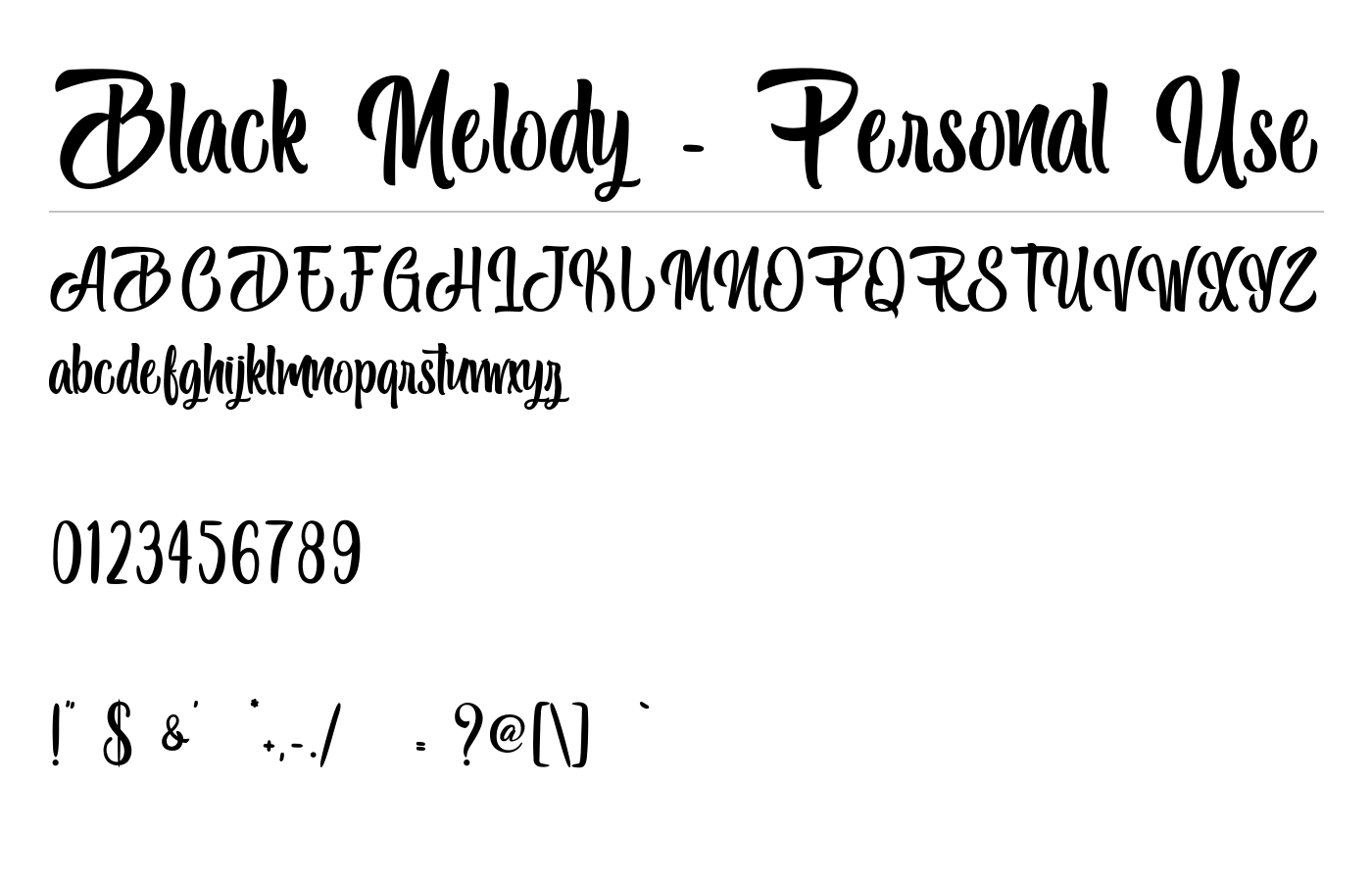
Black Melody is a playful and expressive script font with a bold weight and smooth, flowing curves that give it a lively, handcrafted feel. Its tall x-height and whimsical letterforms with unique strokes and loops make it perfect for creative, casual branding, invitations, and headlines that aim for a fun yet stylish personality. This font stands out in designs needing a personal touch with a modern, artistic vibe.
Black Melody - Personal Use Font
About Black Melody - Personal Use Font
| Font family | Black Melody - Personal Use Font |
| Designer | Typhoon Type - Suthi Srisopha |